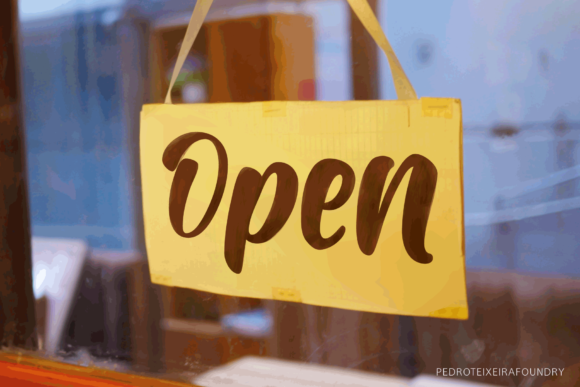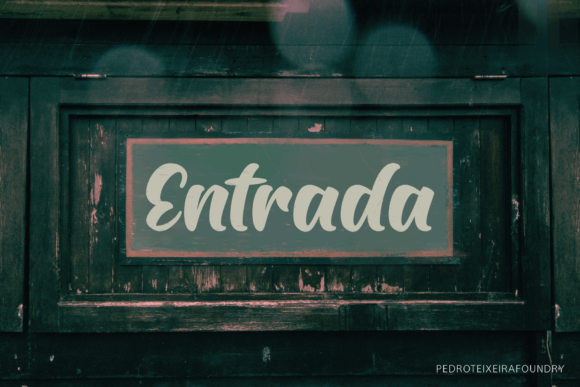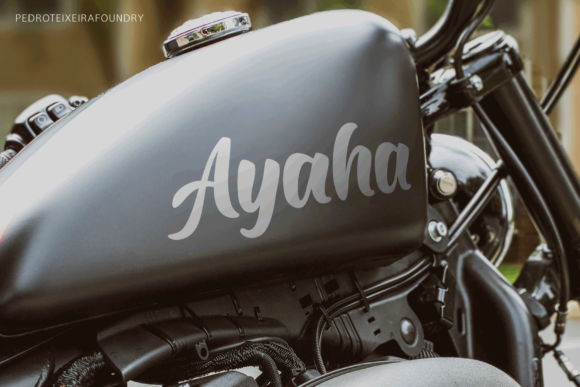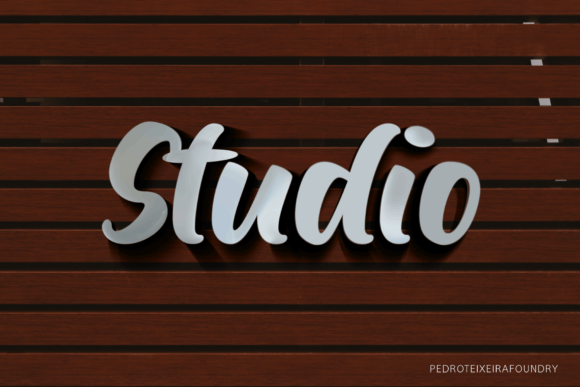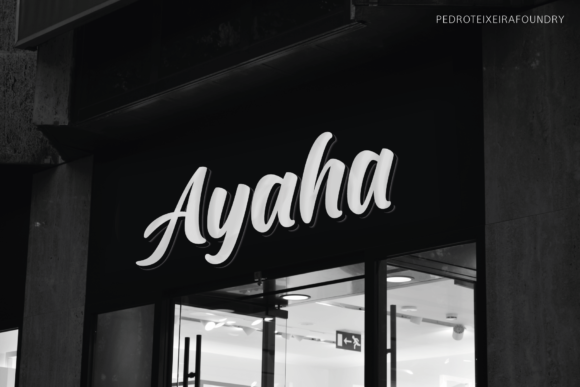
The Ayaha Font: A Friendly Script for Creative Projects
Have you ever been working on a design project, and suddenly, you’re stuck on finding the perfect font? I recall a recent experience where I was tasked with creating a brand identity for a crafty client, and I spent hours scouring the internet for a script font that was both elegant and approachable. That’s when I stumbled upon the Ayaha font, and it quickly became my go-to choice.
First Impressions: A Beautiful Script Font
Ayaha was inspired by brush lettering and boasts a friendly, approachable look. This beautiful script font is not connected, which means you can letter-space without worrying about creating a weird design. The font comes with alternate stylistic sets, adding value to your projects and making it perfect for various applications, including branding, magazines, headers, posters, logotypes, packaging, and more.
Honest Review: The Good and the Quirks
- ✨ Friendly and approachable look, perfect for crafty or creative projects
- ✅ Non-connected script font for easy letter-spacing
- 🎉 Alternate stylistic sets for added design flexibility
- 🤔 Limited character set compared to some other script fonts
- ⚠️ May not be suitable for very formal or traditional designs
The Story Behind Ayaha
Ayaha was designed with the intention of creating a friendly, approachable script font that captures the essence of brush lettering. The designer aimed to create a font that would be versatile and easy to use, making it perfect for a wide range of creative projects.
| Font Name | Ayaha Font |
| Author | Pedro Alexandre Teixeira |
Q: What type of projects is Ayaha suitable for?
A: Ayaha is perfect for various creative projects, including branding, magazines, headers, posters, logotypes, packaging, and more.
Q: Does Ayaha come with alternate stylistic sets?
A: Yes, Ayaha comes with alternate stylistic sets, adding value to your projects and providing design flexibility.
Q: Is Ayaha a connected script font?
A: No, Ayaha is a non-connected script font, making it easy to letter-space and use in a variety of designs.